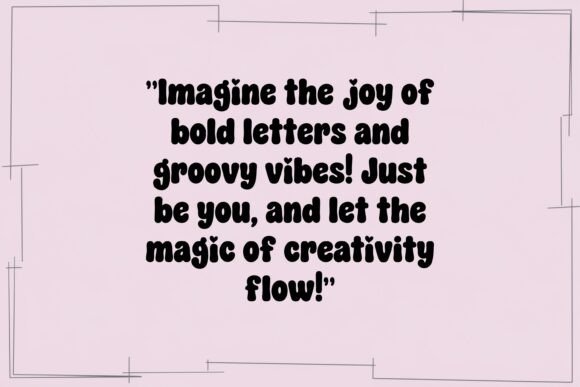
Jolly Vibes Bold Font
Jolly Vibes Bold is a whimsical and groovy handwritten font with a bold, retro aesthetic. Featuring a playful and thick letter style with charming decorative accents like hearts and stars, this font is perfect for adding a cheerful touch to your designs. Whether you’re creating social media quotes, party invitations, branding, or DIY crafts, this font duo (solid and outline styles) will make your projects stand out. The Jolly Vibes Bold font includes uppercase and lowercase letters, numbers, and symbols, available in OTF and TTF formats for seamless compatibility with design tools like Cricut, Silhouette, Canva, and Procreate. Elevate your creative projects with this unique and versatile font!